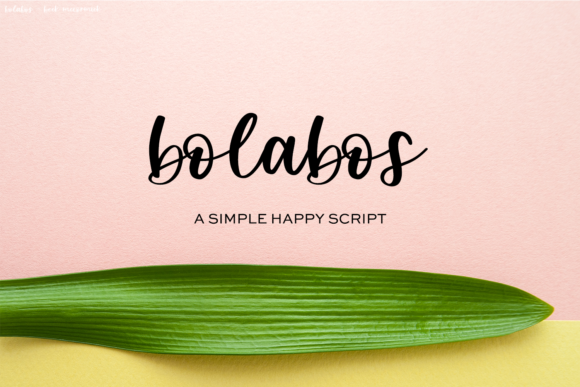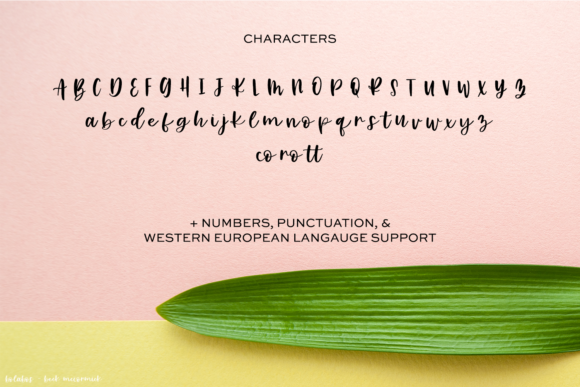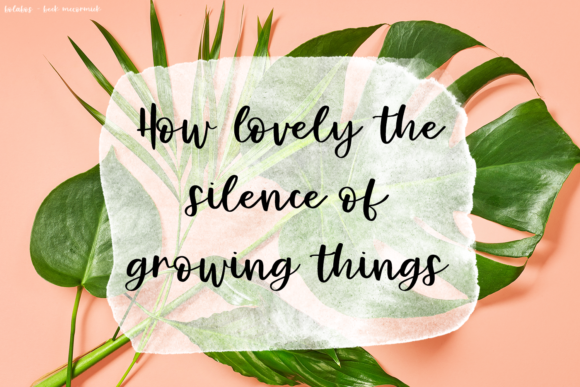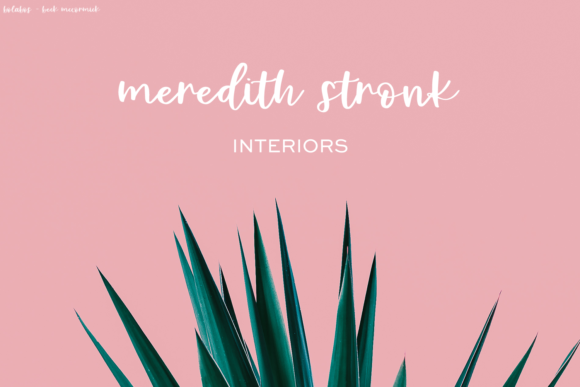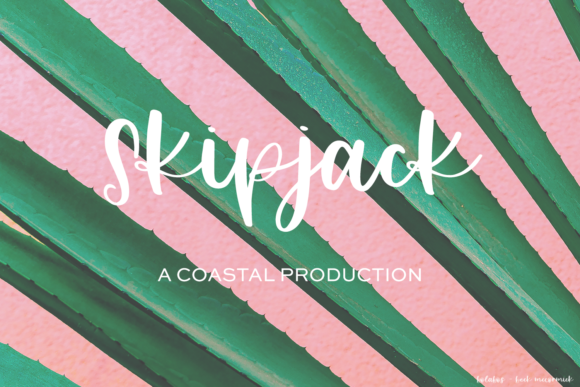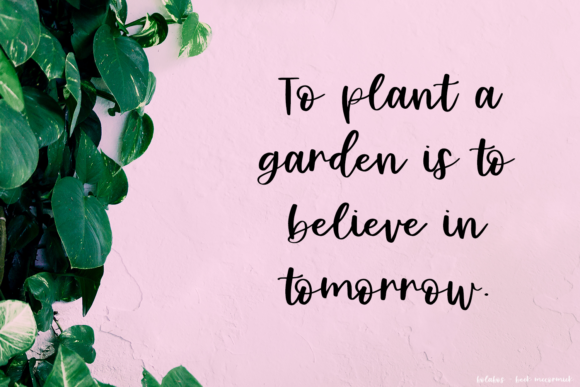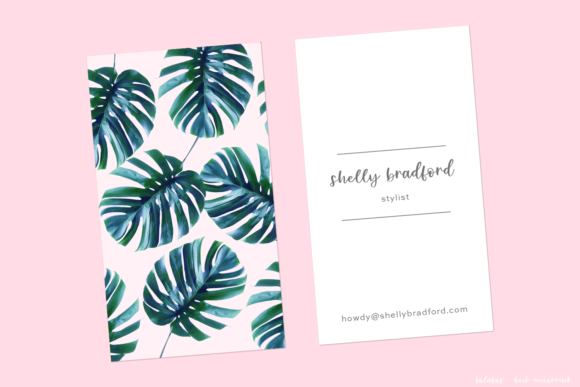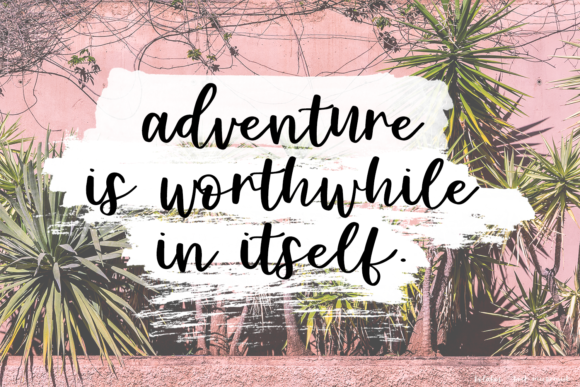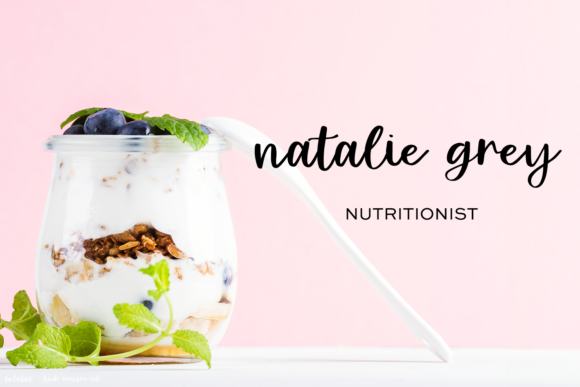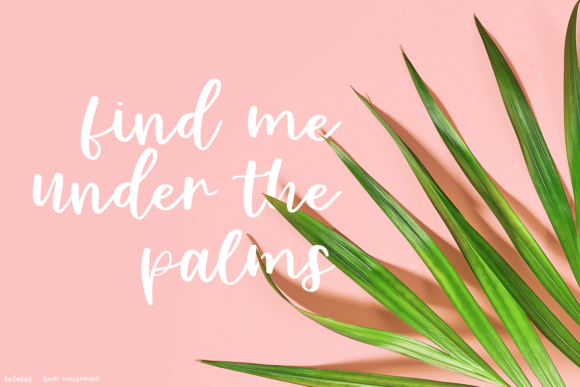
HomeScript FontsBolabos Font Script Fonts Bolabos Font FacebookXPinterestWhatsApp Bolabos Font Poster 2 Bolabos Font Poster 3 Bolabos Font Poster 4 Bolabos Font Poster 5 Bolabos Font Poster 6 Bolabos Font Poster 7 Bolabos Font Poster 8 Bolabos Font Poster 9 Bolabos Font Poster 10 About Bolabos Font Bolabos is a beautiful handwritten font with a bold and authentic feel. Get inspired by this organic typeface! DOWNLOAD ON CREATIVE FABRICAThis font is sold and delivered by Creative Fabrica. Font Canyon may earn a commission if you buy through this link. People also explored Valley Font Cadila Font Soffia Script Font Rossaline Font Behrensmeyer Vigesimals Sweet Jelly Font Magic Night Font Amazing Winter Font Valentine Font 316 0 TagsBolabos Font Previous articleMonttrela FontNext articleImagination Font LEAVE A REPLY Cancel reply Comment: Please enter your comment! Name:* Please enter your name here Email:* You have entered an incorrect email address! Please enter your email address here Website: Save my name, email, and website in this browser for the next time I comment. Personal Use Free Browie Personal Use Free Read more about this font Token No 721 Personal Use Free Read more about this font Bahjera Personal Use Free Read more about this font Mandarins Personal Use Free Read more about this font BLOG Free vs Paid Fonts: Why Investing in Premium Fonts Is Worth It Free vs Paid Fonts: Why Premium Fonts Are Worth It in 2025 The debate of free vs paid fonts continues in the design world. While... Best Fonts for YouTube Videos: Make Your Thumbnails Stand Out Exploring Font Trends 5 Fonts That Will Dominate Design Trends in 2026